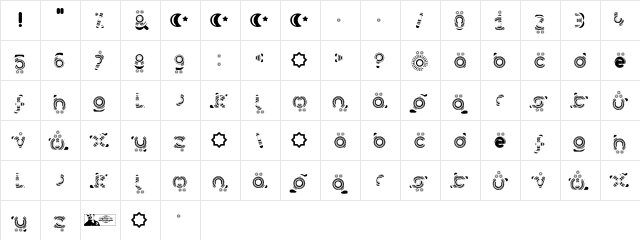
FTF Ahlan Ve AbraRetro vl.1 Regular
| Foundry | Fizzetica |
| Designer | This re-design font ARISTA by studio Kmzero is Freeware |
Design Context for FTF Ahlan Ve AbraRetro vl.1 Typeface
FTF Ahlan Ve AbraRetro vl.1 has the warm character of retro typography — evoking diners, record sleeves, and the golden age of print advertising.
Font Pairing: Combine FTF Ahlan Ve AbraRetro vl.1 with a simple slab or neutral sans — period-accurate companions reinforce the vintage feel without competing for attention.
Pro Tip: Lean into FTF Ahlan Ve AbraRetro vl.1's period character by pairing it with aged paper textures, muted colour palettes, and vintage illustration styles.